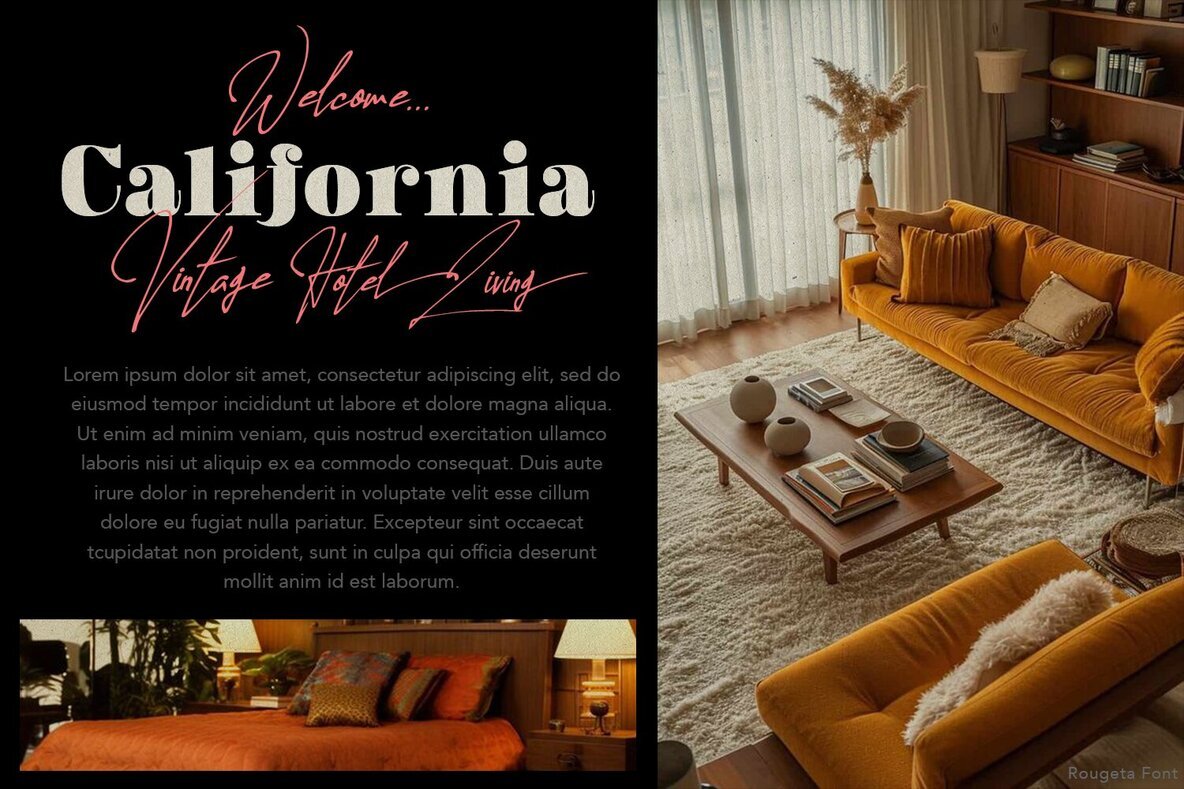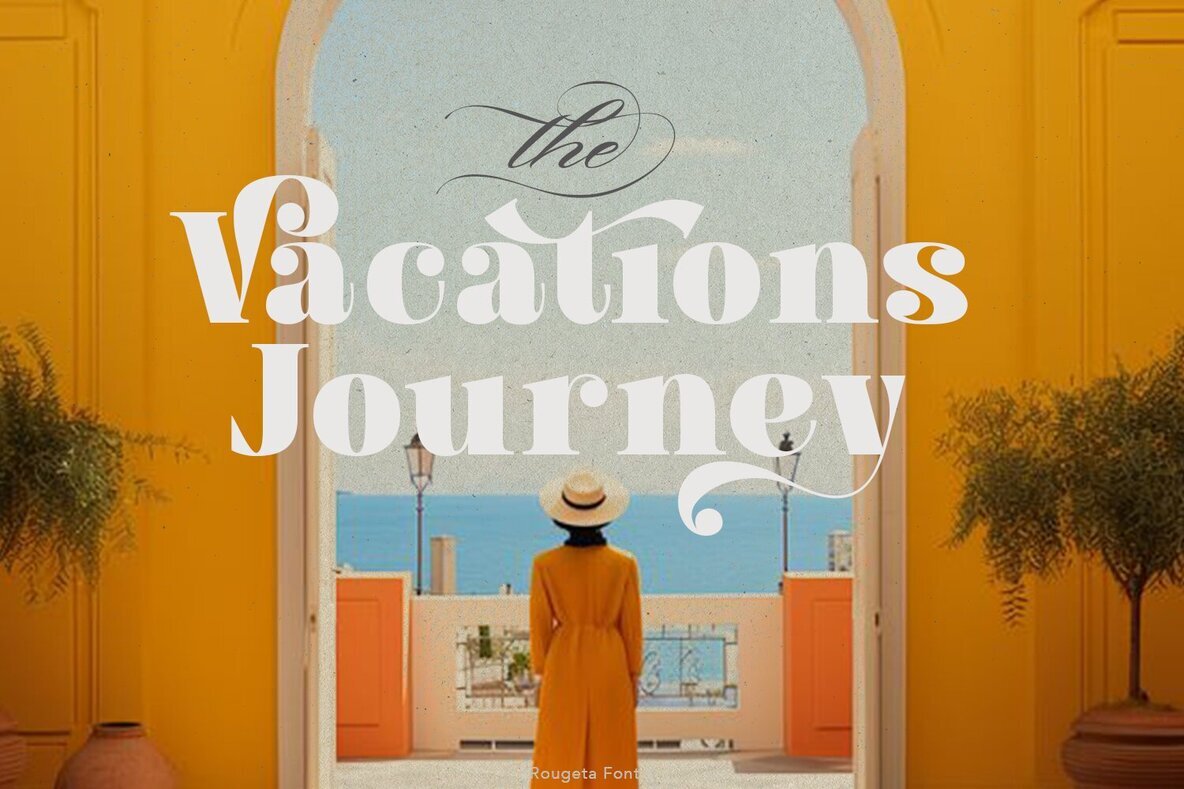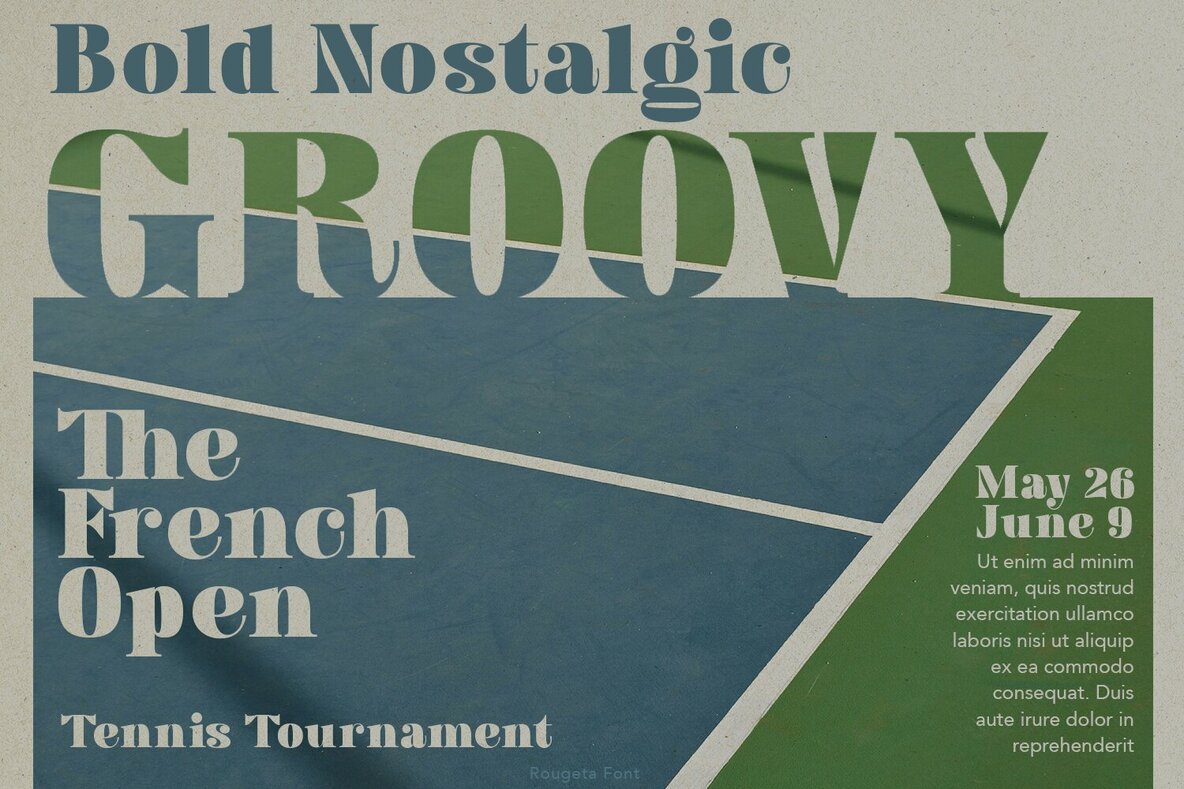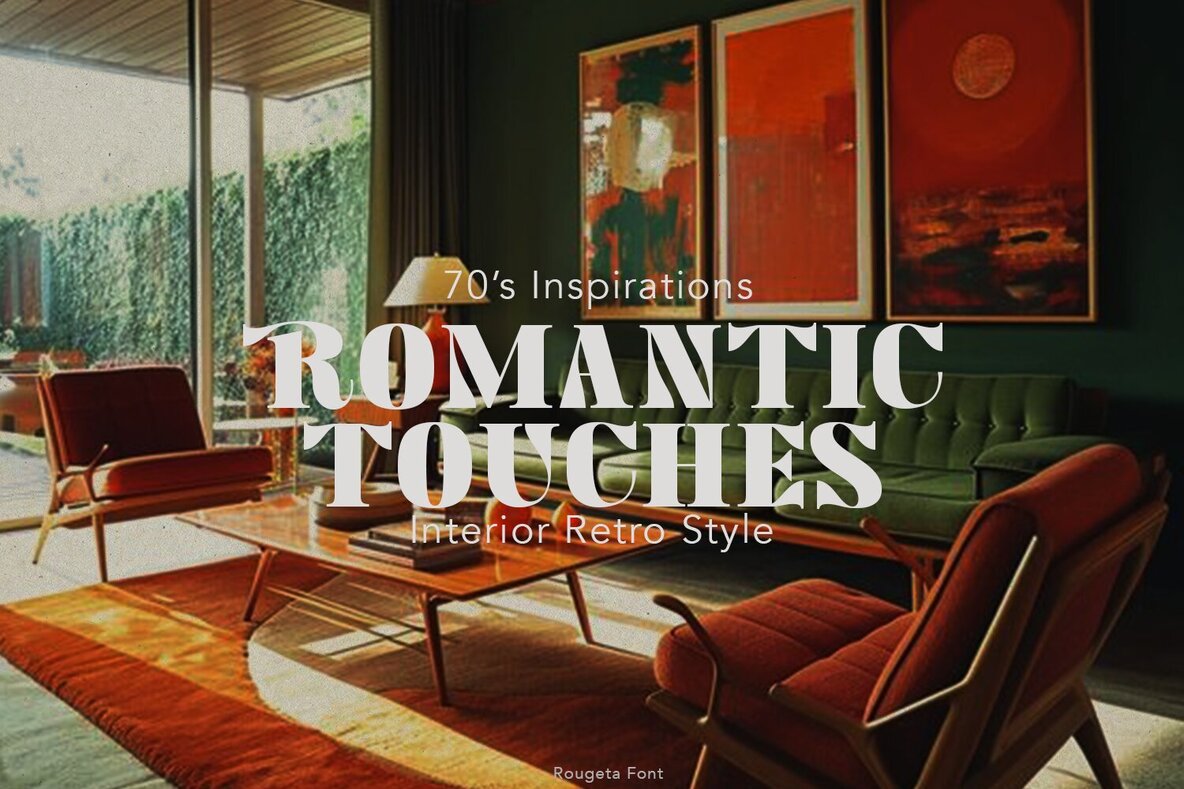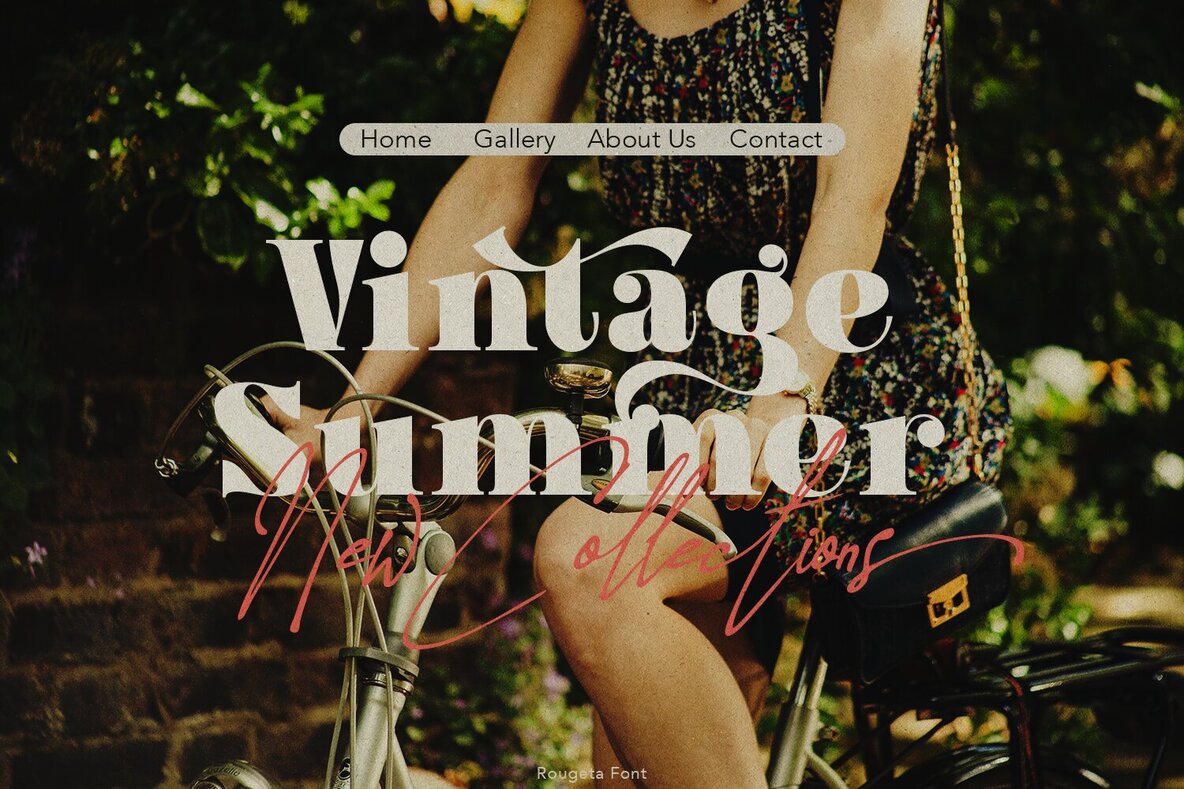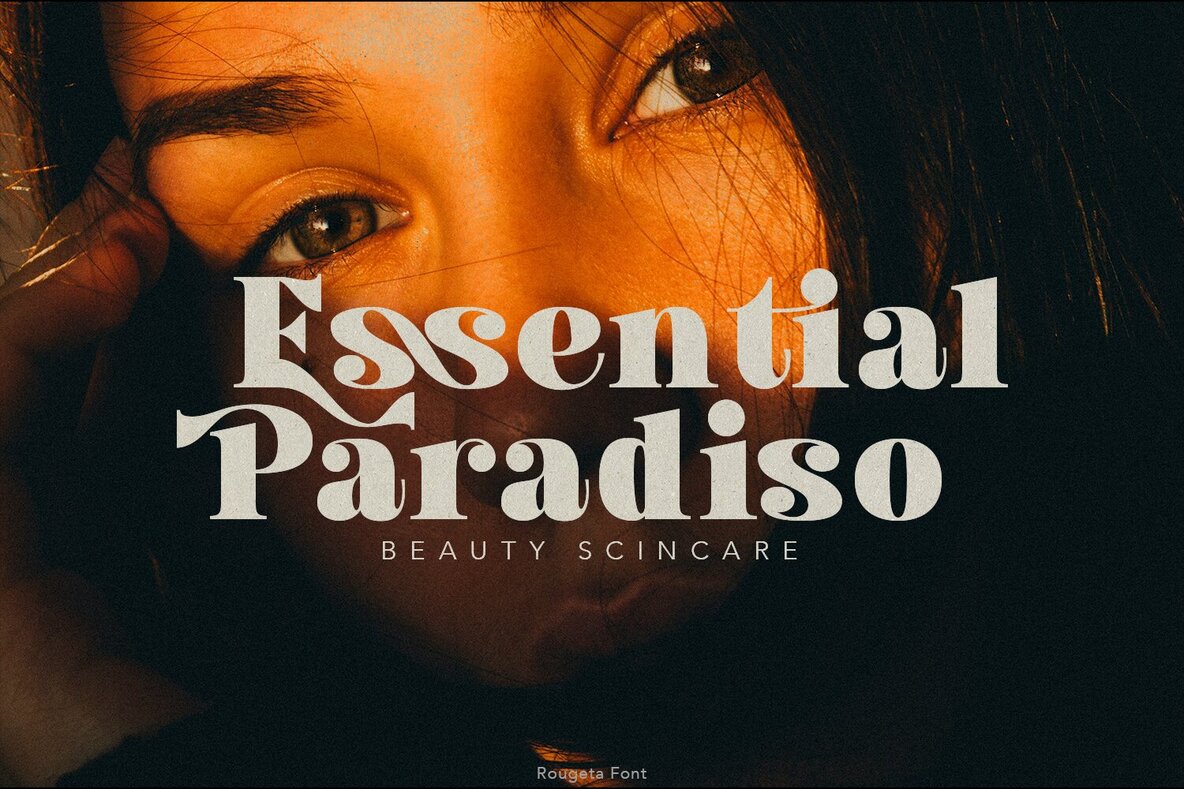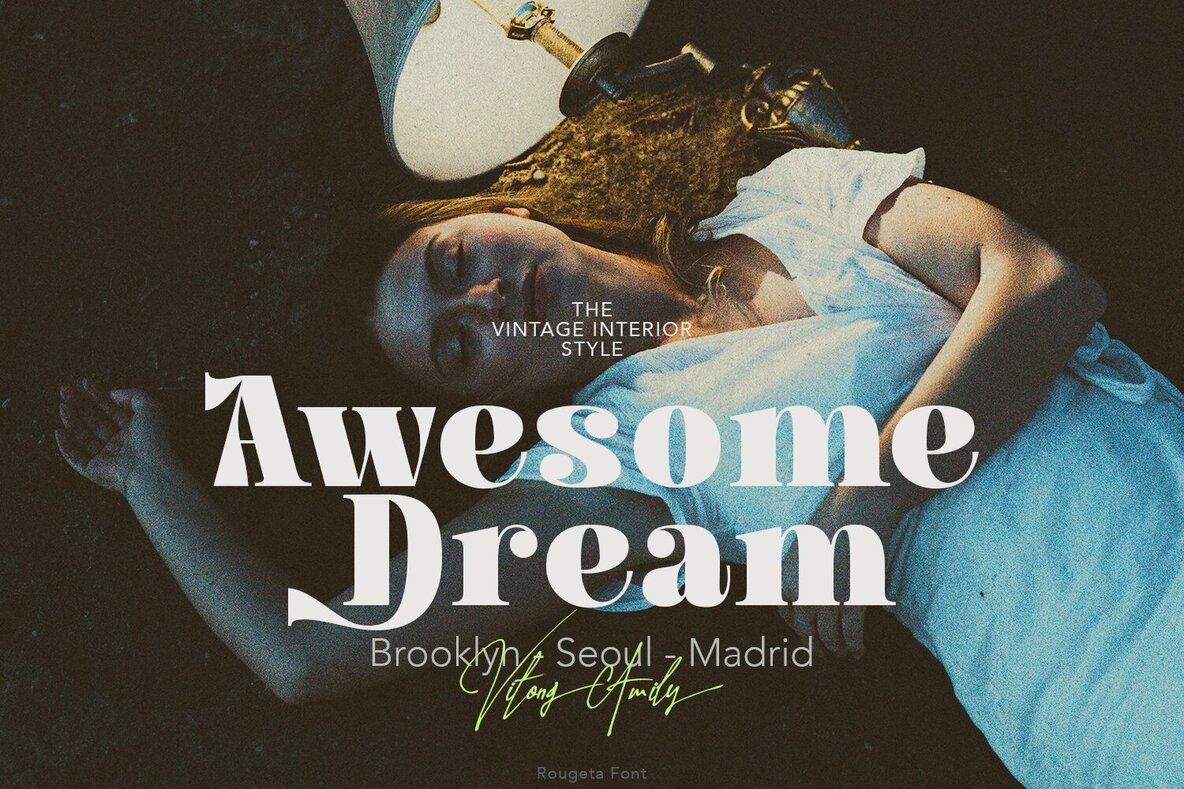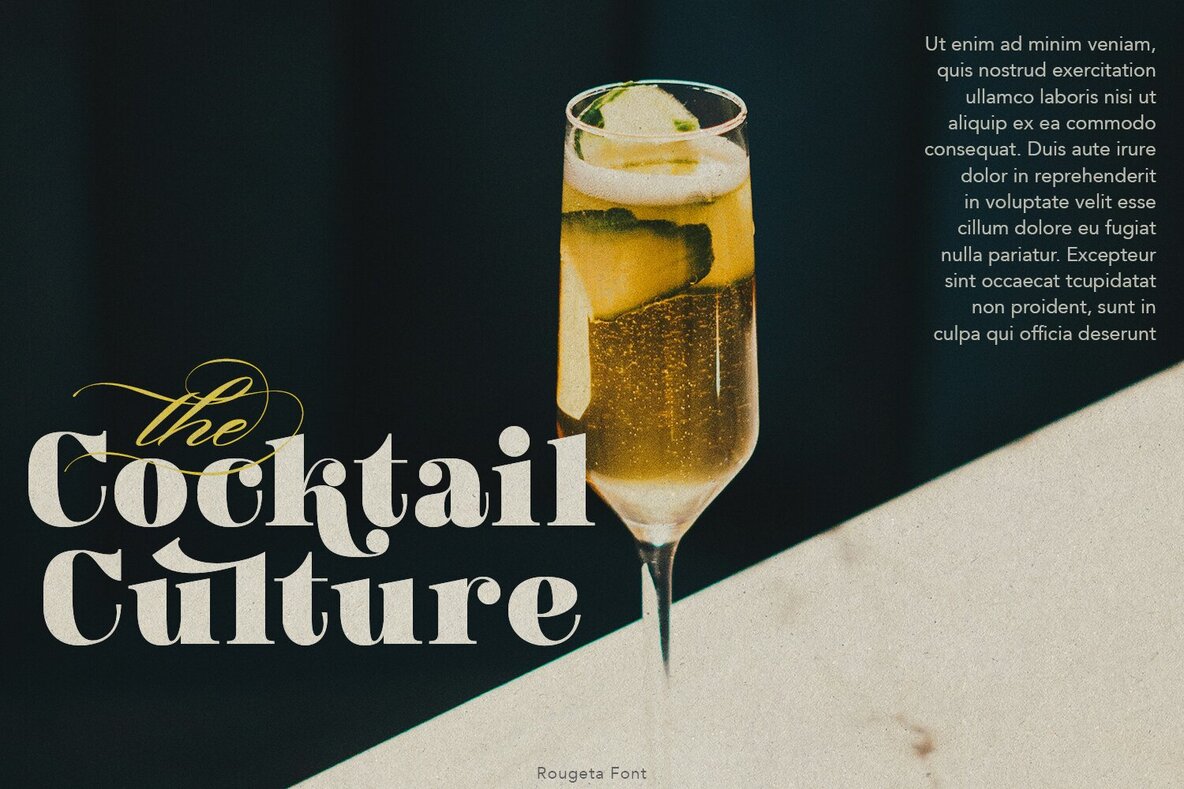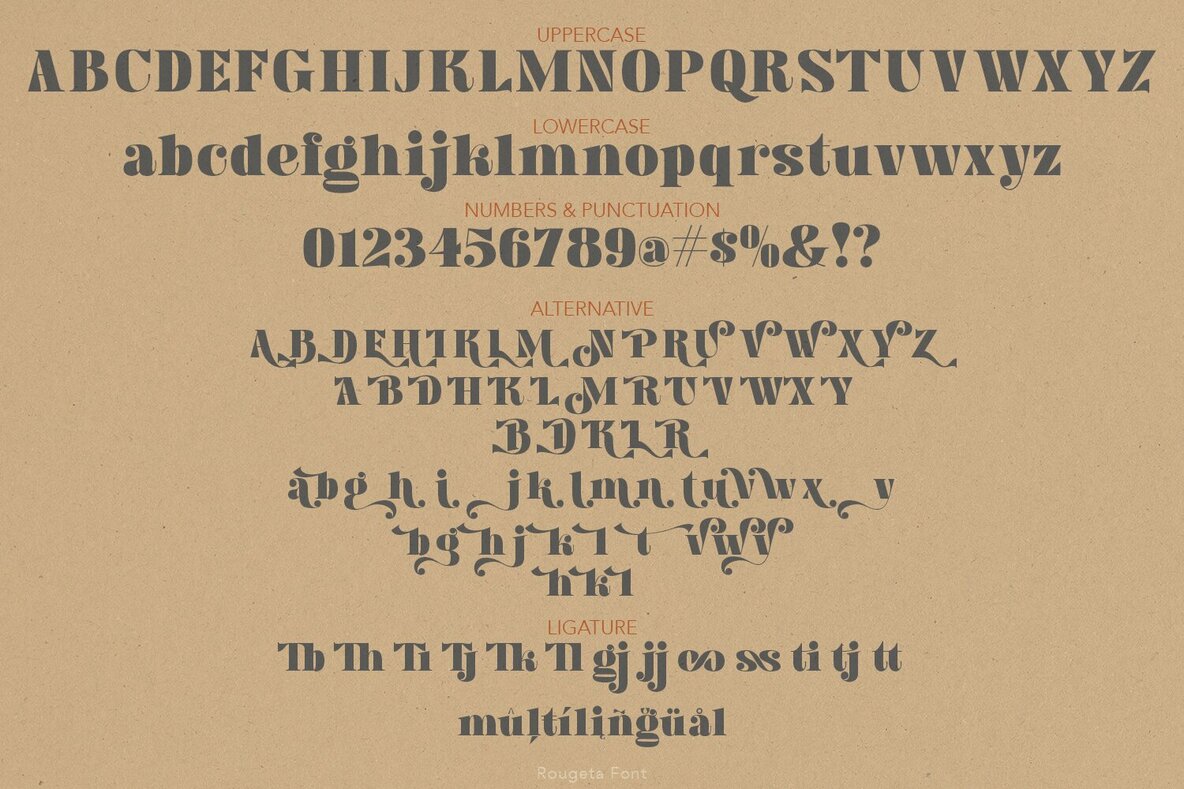
Rougeta Font
Rougeta Regular
Rougeta is a nostalgic font, come with single weight, legible and expressive shapes. This font is very perfect for many display purposes a lot of stylish alternates characters and ligature will makes this font suitable for your any project design.